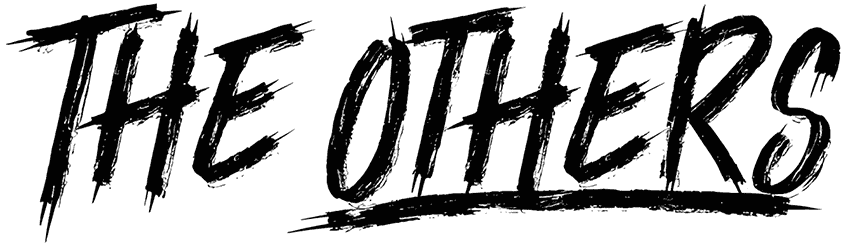
The Others Font
Never underestimate the power of a script font such as The Others that has the real potential to play the role of a game-changer in your street posters, digital brochures, video game banners, or social media posts. This all-caps trash font can bring a feeling of grunge, jauntiness, or drama to any kind of visual content.